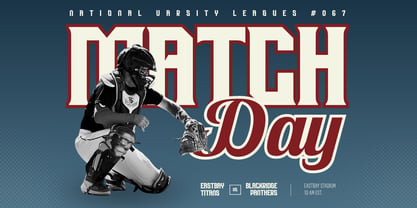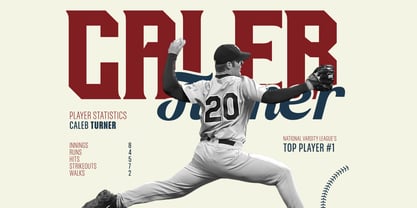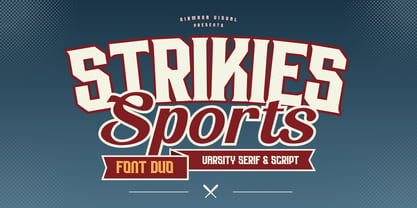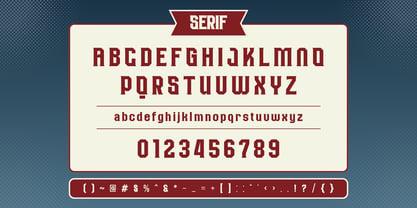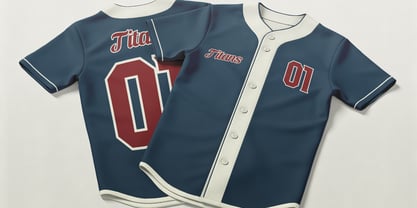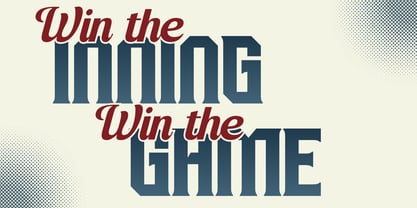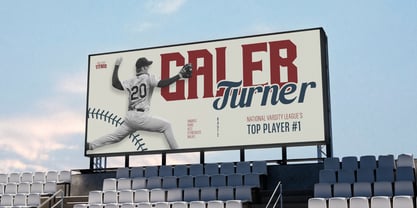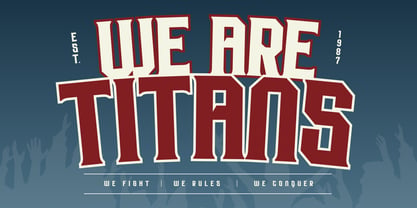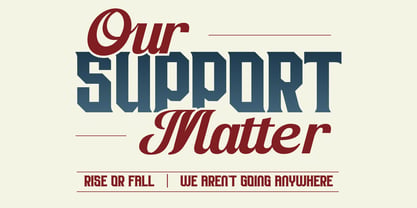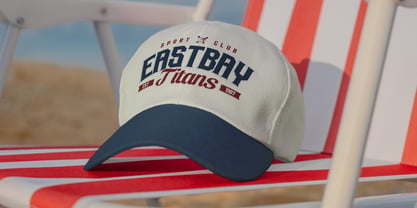
Strikies Sports
by Nirmana Visual
The Strikies Sports Font Family was designed by Sigit Dwipa and published by Nirmana Visual. Strikies Sports contains 2 styles and family package options. More about this family
Featuring a bold, slab serif that mirrors the architectural strength of historic stadiums, paired perfectly with a nostalgic, rhythmic script reminiscent of hand-stitched jersey signatures. It’s a tribute to the crack of the bat, the dust of the slide, and the enduring legacy of the game. Rooted in tradition but designed for the modern fan. We’ve paired a sturdy, traditional serif for a grounded, collegiate feel with a fluid, elegant script that adds a touch of artisanal craftsmanship. From the dugout to the streets, it’s a grand slam in typography.
Designers: Sigit Dwipa
Foundry: Nirmana Visual